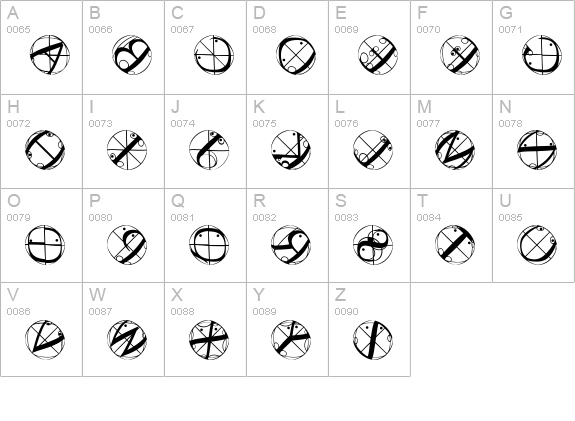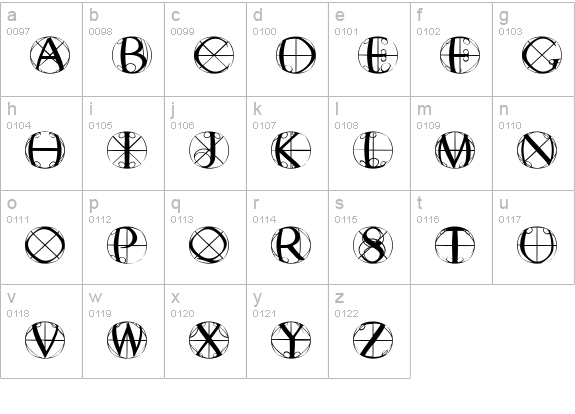
RodauButtons Font Details
Introducing RodauButtons font, a charming and playful typeface perfect for adding a touch of fun to your designs. With its rounded edges and unique button-like appearance, RodauButtons is sure to catch the eye and bring a sense of whimsy to any project. This delightful font is not only visually appealing but also incredibly versatile, making it suitable for a wide range of creative applications. Whether you're designing a poster, logo, greeting card, or website, RodauButtons will add a cheerful and inviting vibe to your work. And the best part? RodauButtons is completely free to download at FontsMarket.com! That's right, you can easily access this delightful font without breaking the bank. So why wait? Give your designs a playful twist with RodauButtons today.